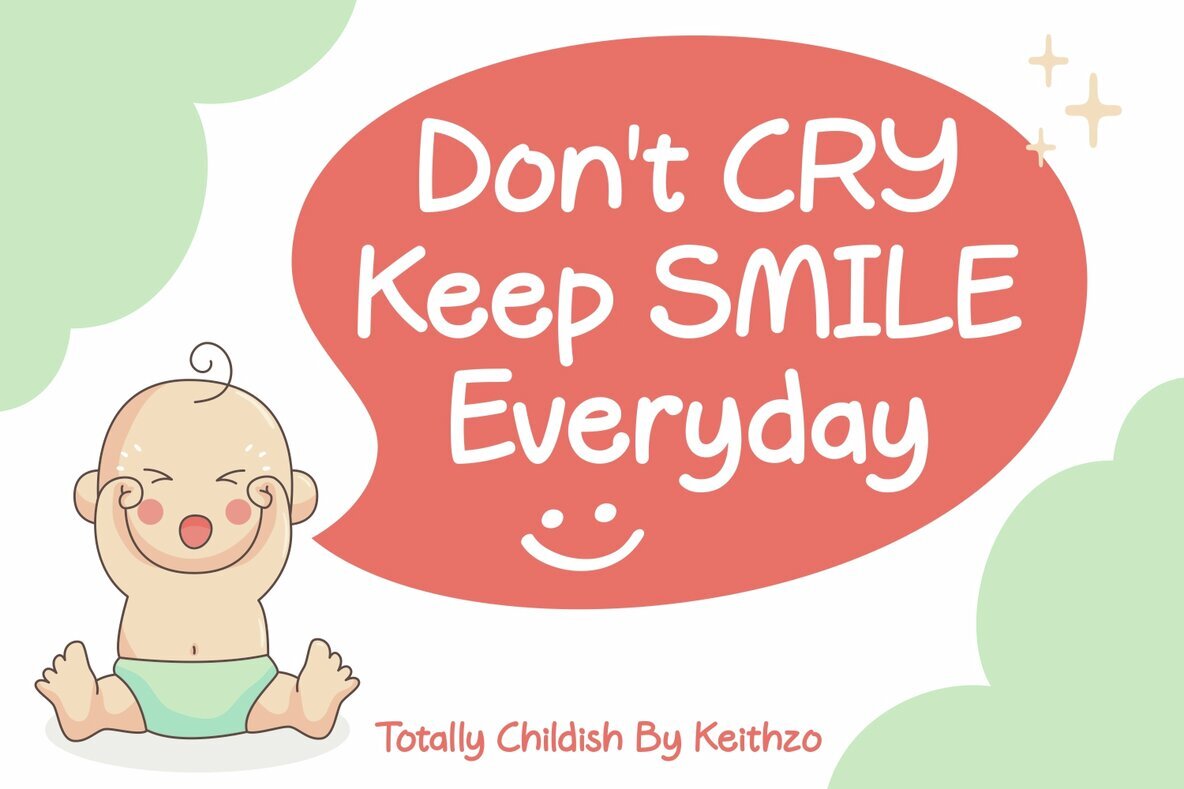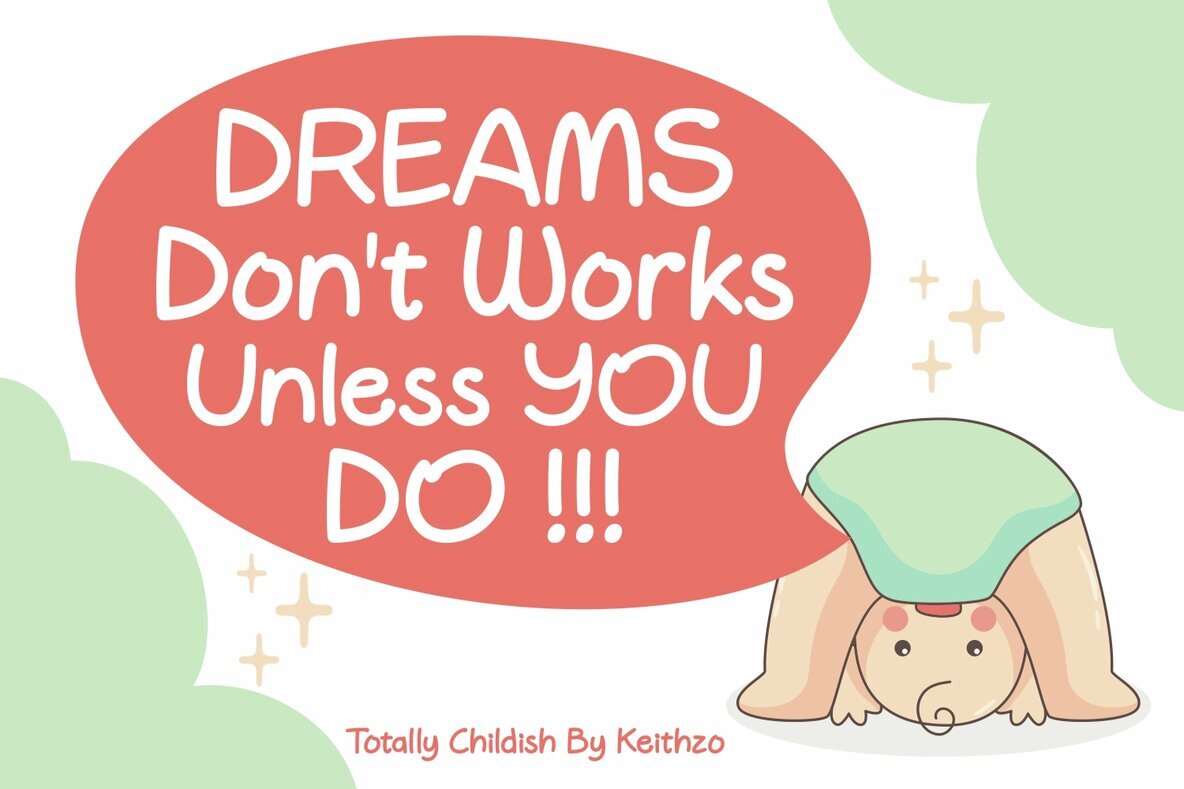
Totally Childish Font
Totally Childish
Delve into the world of fonts that spark joy with Totally Childish, a delightfully playful handwritten font, designed by the renowned KEITHZO. Tailored with precision and creativity, Totally Childish stands out in its niche, effortlessly merging the cheerful ambiance of childhood with the grace of thoughtful design. Adorn your graphic design projects with this warm, fuzzy font, a perfect fit for all child-themed ventures. Be it an invitation, a website, or branding elements, Totally Childish infuses a touch of whimsy, appealing directly to the imaginative minds of the young, and the young at heart. So, choose Totally Childish, and create designs that truly stand out, while infusing waves of nostalgia, warmth, and charm in every stroke!A Playful Font for All Kid-Centric Designs - Totally Childish by KEITHZO